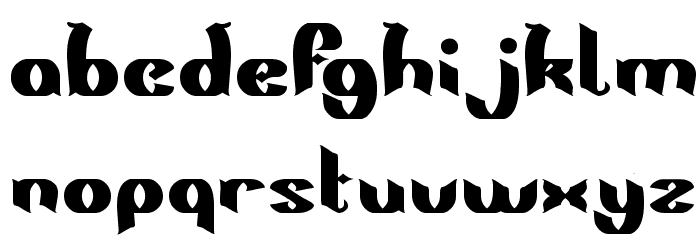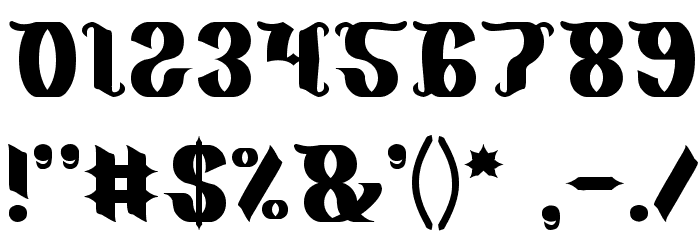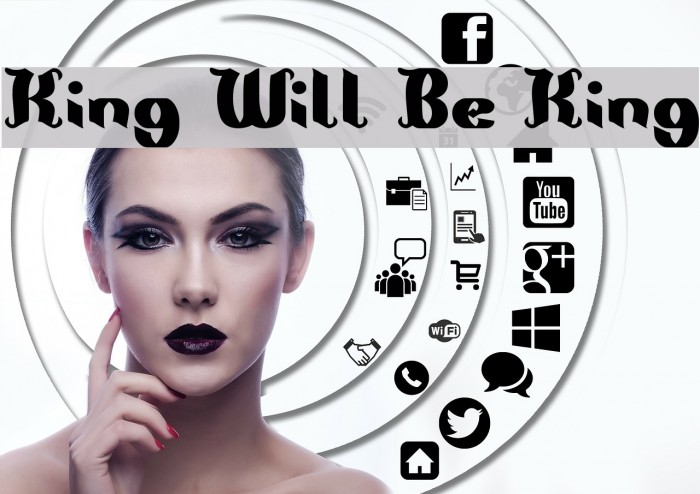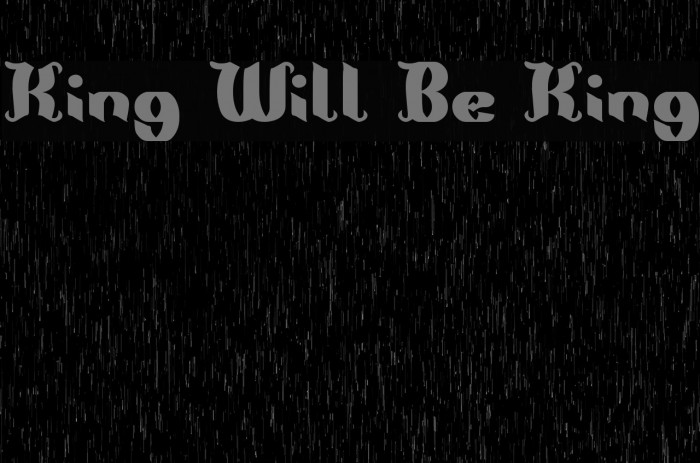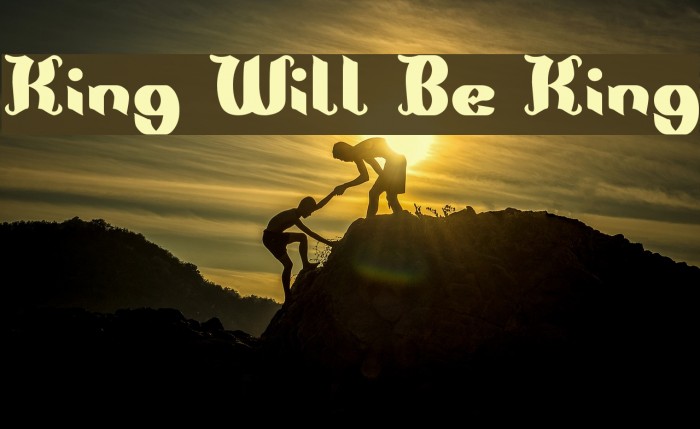
King Will Be King Font
This font features a bold and dramatic style with a distinct medieval and gothic influence. The characters are heavily stylized with sharp edges and unique curves, creating an ornate and decorative appearance. The uppercase letters are particularly elaborate, with intricate details that give them a regal and commanding presence. The lowercase letters maintain the same boldness but with slightly more subtle embellishments. Numbers and special characters follow the same design principles, ensuring consistency throughout the font. This font is perfect for projects that require a touch of historical elegance and grandeur.
A bold, gothic-inspired font with ornate and decorative characters.
- Proposed Projects: Ideal for historical-themed designs, fantasy book covers, event invitations, and branding that requires a medieval touch.
- Overall Style: Vintage